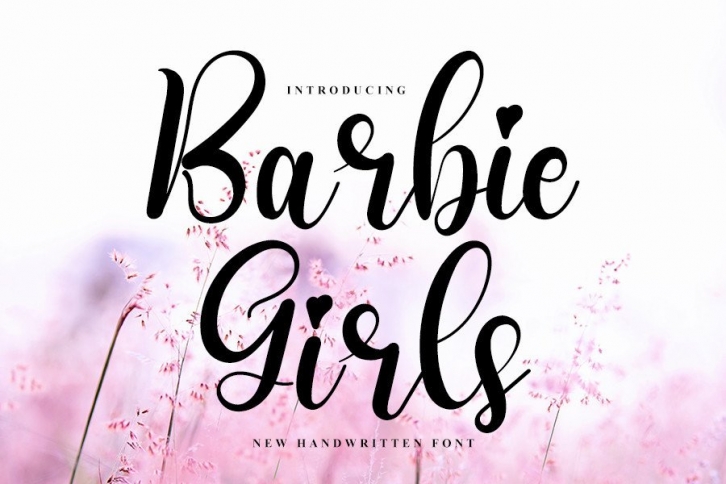
Barbie Girls is a neat and beautiful handwritten font described by an elegant touch, perfect for your favorite projects. Fall in love with its incredibly distinct and timeless style, and use it to create spectacular designs!